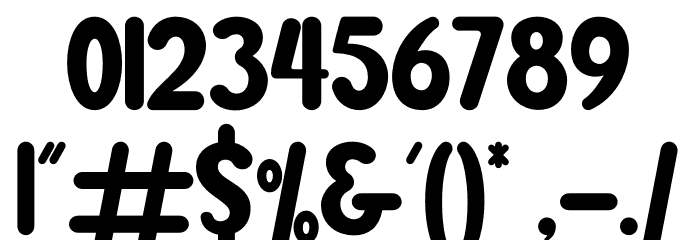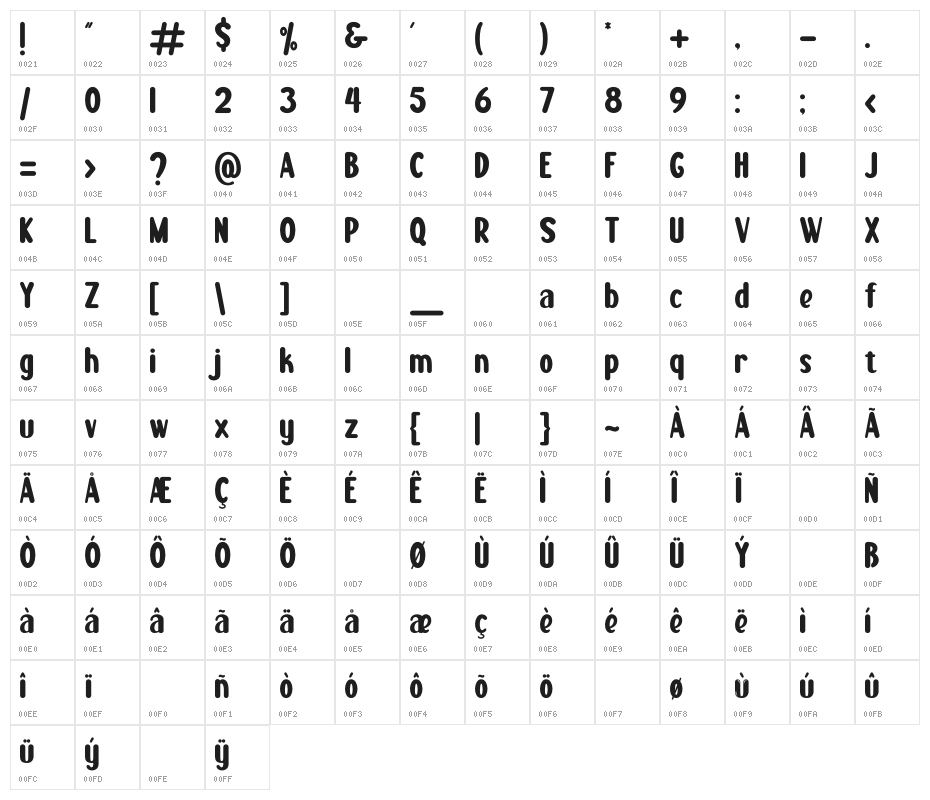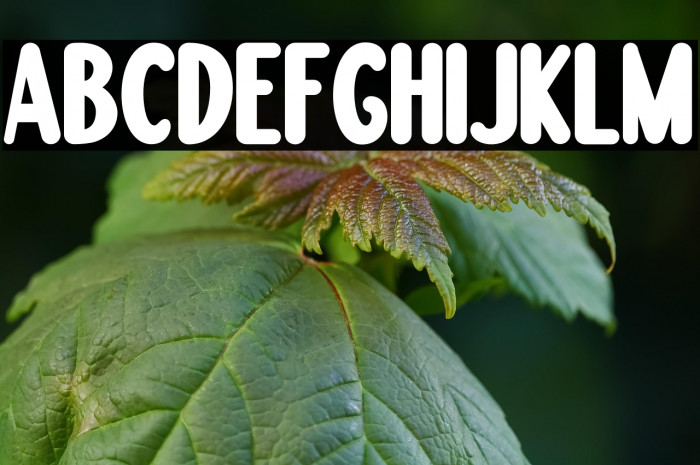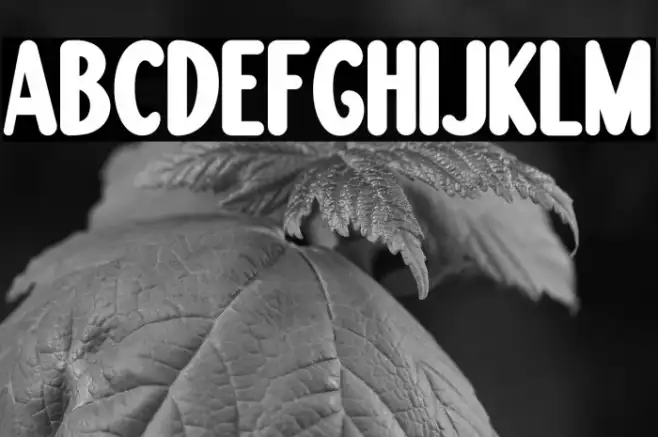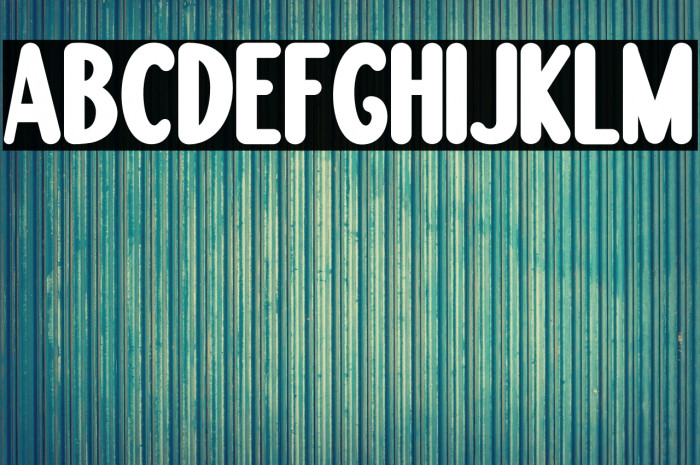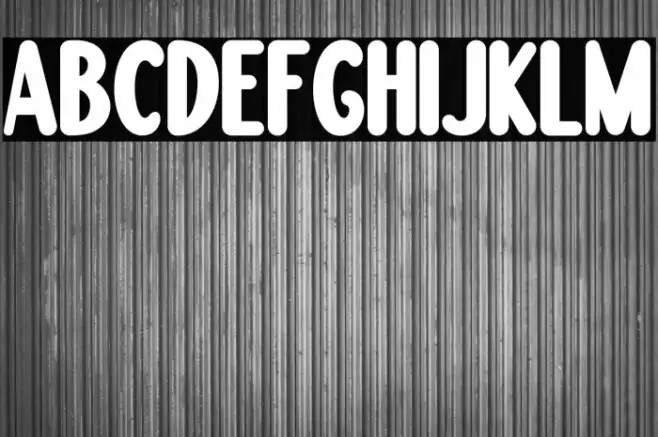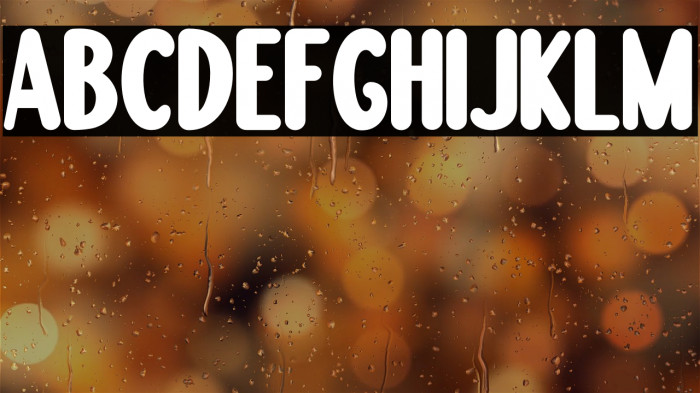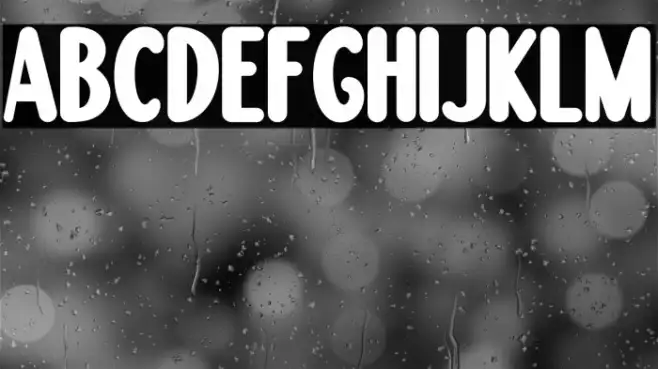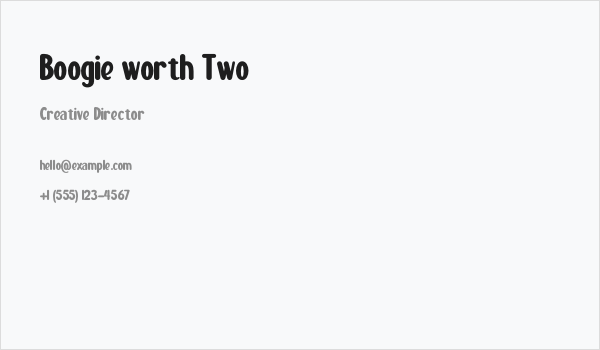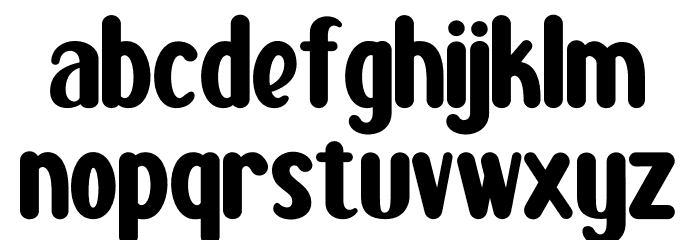
Boogie worth Two Font
Boogie worth Two Description
This font features a playful and bold design, characterized by its rounded and smooth edges. The letters are thick and have a uniform stroke width, giving it a strong presence. The uppercase and lowercase letters maintain a consistent style, with slightly exaggerated curves that add a whimsical touch. The numbers and special characters follow the same design principles, ensuring a cohesive look. This font exudes a sense of fun and energy, making it ideal for projects that require a lively and engaging typeface.
Overall StylePlayful, Energetic
Proposed ProjectsPerfect for children's books, playful branding, event posters, and social media graphics.